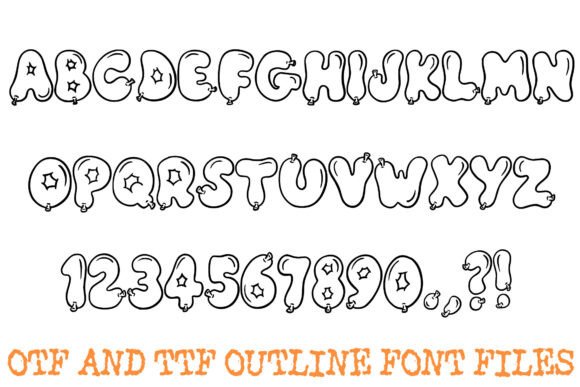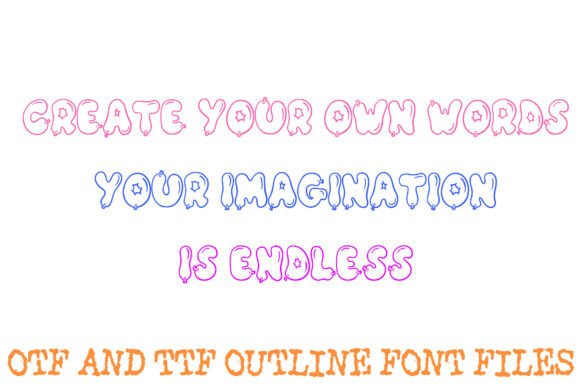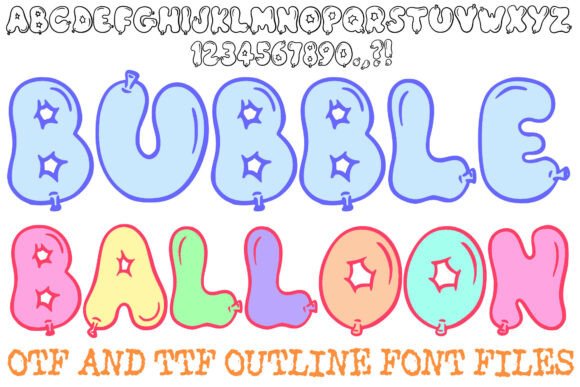
Let Your Creativity Take Flight with the Balloon Bubble Font!
Are you looking for a font that can add a touch of whimsy and celebration to your designs? Look no further than the Balloon Bubble Font! This delightful hand-drawn display alphabet is perfect for designers and crafters who want to create playful and cheerful projects that are sure to bring a smile to people’s faces.
What is the Balloon Bubble Font?
The Balloon Bubble Font is a unique and charming font that features whimsical, air-filled characters designed to look like individual party balloons. Each letter and number is crafted with soft, rounded curves and features charming star-shaped “shine” highlights that give the font a glossy, 3D appearance. The font is complete with realistic tie-knots at the base of each character, making it look like a real tied balloon.
Perfect for Celebratory Designs
The Balloon Bubble Font is the perfect choice for birthday invitations, celebration-themed branding, playful stickers, and cheerful digital scrapbooking. The font’s playful and whimsical design makes it ideal for designs that require a lighthearted and celebratory touch. Whether you are designing for a children’s event, a festive social media campaign, or fun nursery decor, the Balloon Bubble Font adds a touch of magic to every word.
Why Your Designs Will Soar
So, what makes the Balloon Bubble Font so special? Here are just a few reasons why your designs will soar with this amazing font:
- Realistic Balloon Details: Every character includes a small knot detail at the bottom, mimicking the look of a real tied balloon. This attention to detail makes the font look incredibly realistic and adds to its charm.
- Sparkling Star Highlights: Unique star-shaped reflections add a magical, polished touch to the “puffy” silhouettes. This feature gives the font a glossy, 3D appearance that is sure to catch the eye.
- High-Impact Designs: The Balloon Bubble Font is perfect for creating high-impact designs that are sure to grab attention. Whether you are designing a birthday invitation or a social media graphic, this font is sure to make your design stand out.
The Balloon Bubble Font is incredibly versatile and can be used for a wide range of design projects. Here are just a few ideas to get you started:
- Birthday Invitations: Create custom birthday invitations that are sure to delight kids and adults alike.
- Social Media Graphics: Add a touch of whimsy to your social media graphics with this playful font.
- Digital Scrapbooking: Create cheerful digital scrapbook pages that are perfect for celebrating special occasions.
- Playful Stickers: Design playful stickers that are sure to bring a smile to people’s faces.
- Nursery Decor: Create fun and playful nursery decor with this delightful font.
Tips for Using the Balloon Bubble Font
Here are a few tips for using the Balloon Bubble Font in your designs:
- Experiment with Colors: Try out different colors and color combinations to see what works best with the font.
- Play with Size: Experiment with different font sizes to create visual interest and hierarchy in your design.
- Add Texture: Consider adding texture to your design to give it a more organic and playful feel.
The Balloon Bubble Font is a unique and charming font that is perfect for designers and crafters who want to add a touch of whimsy and celebration to their designs. With its realistic balloon details, sparkling star highlights, and high-impact design, this font is sure to make your designs soar. Whether you are designing for a children’s event, a festive social media campaign, or fun nursery decor, the Balloon Bubble Font is the perfect choice. So why wait? Let your creativity take flight with the Balloon Bubble Font!